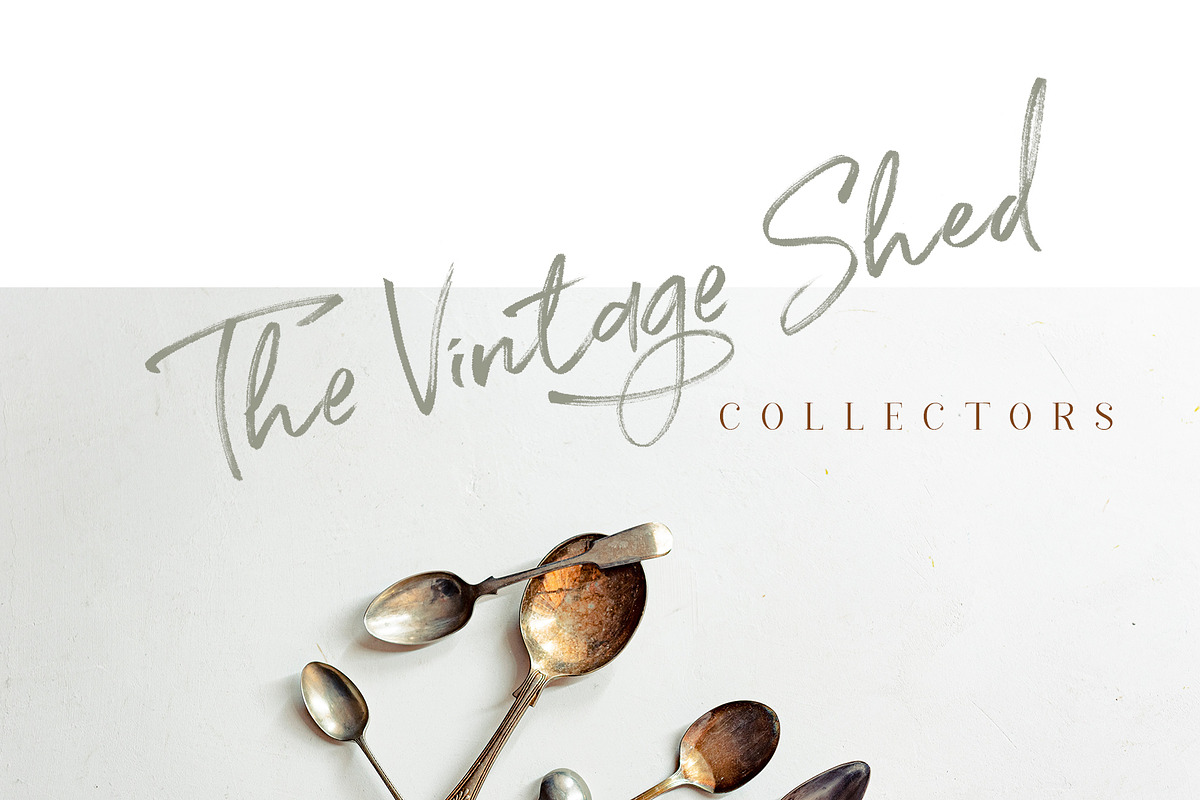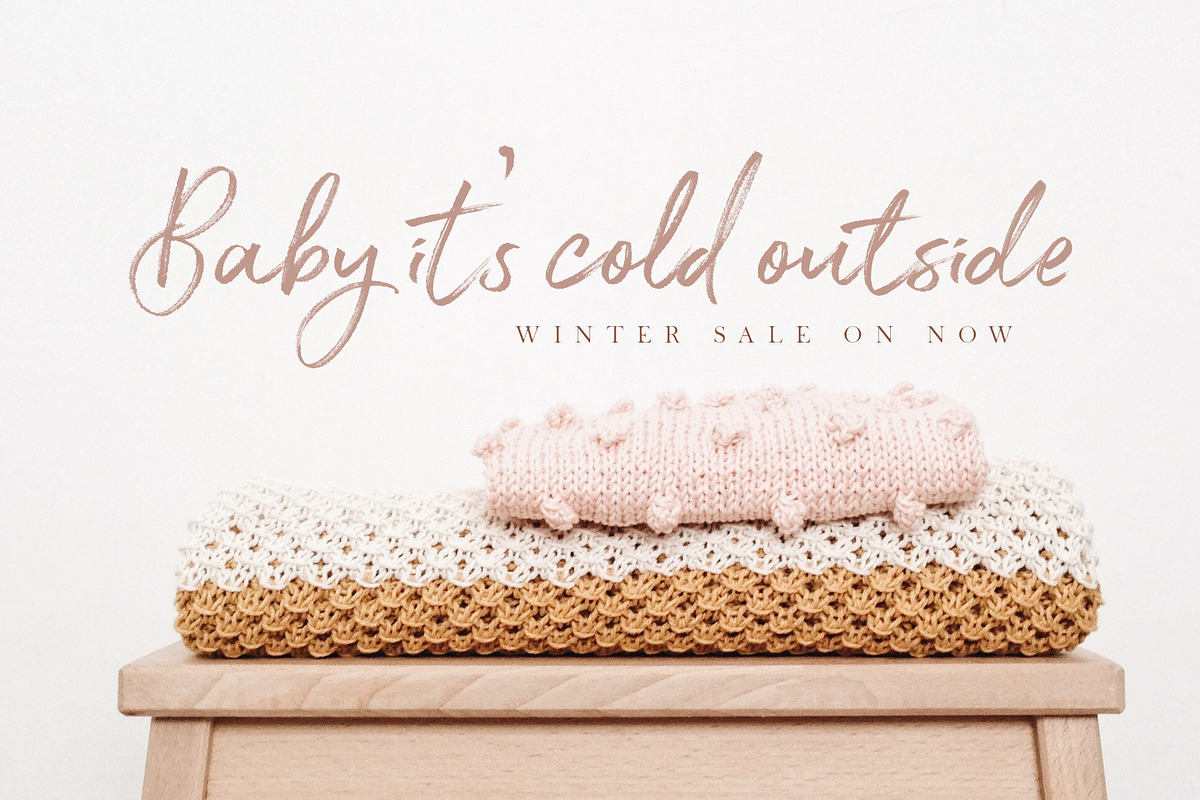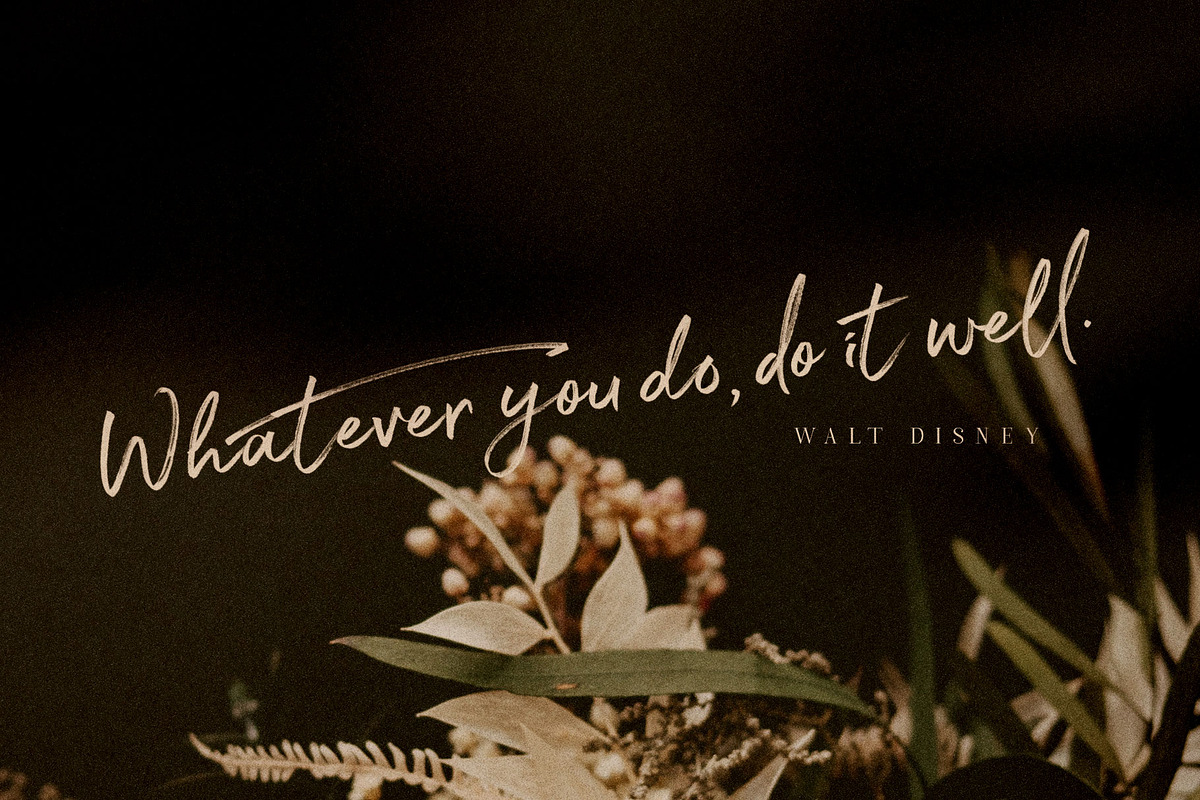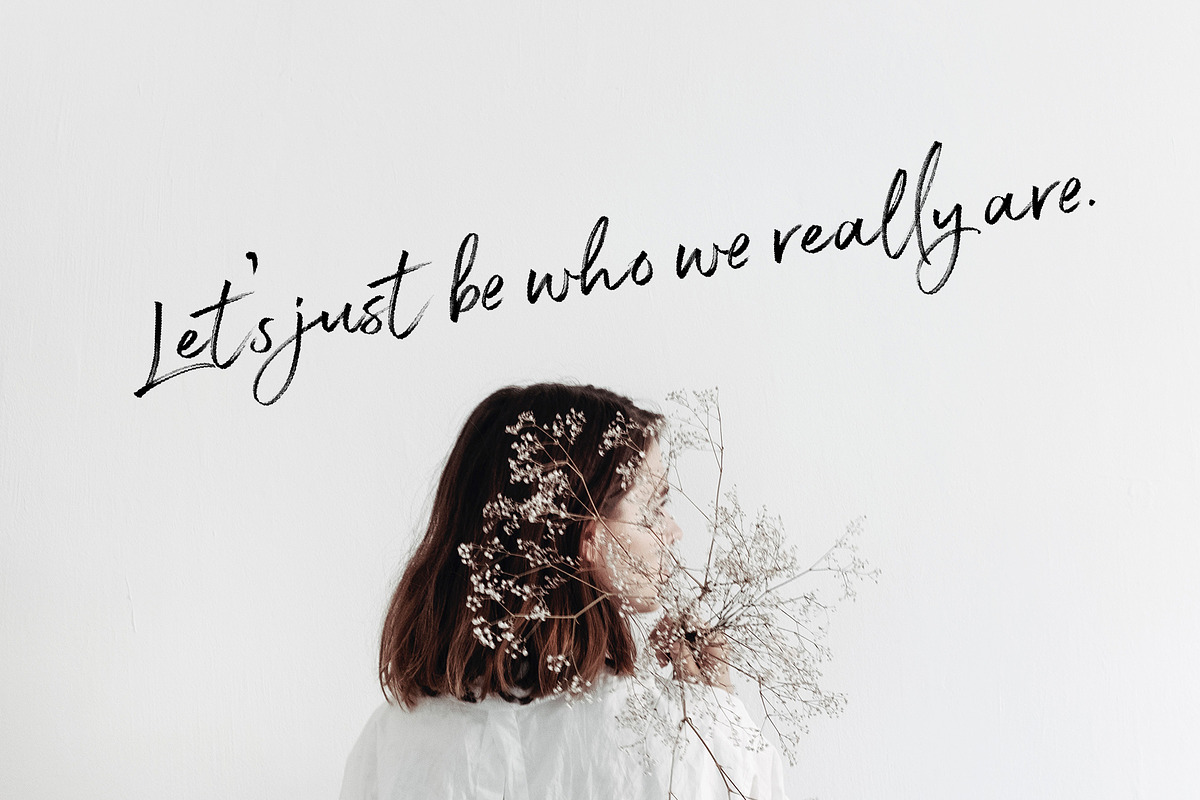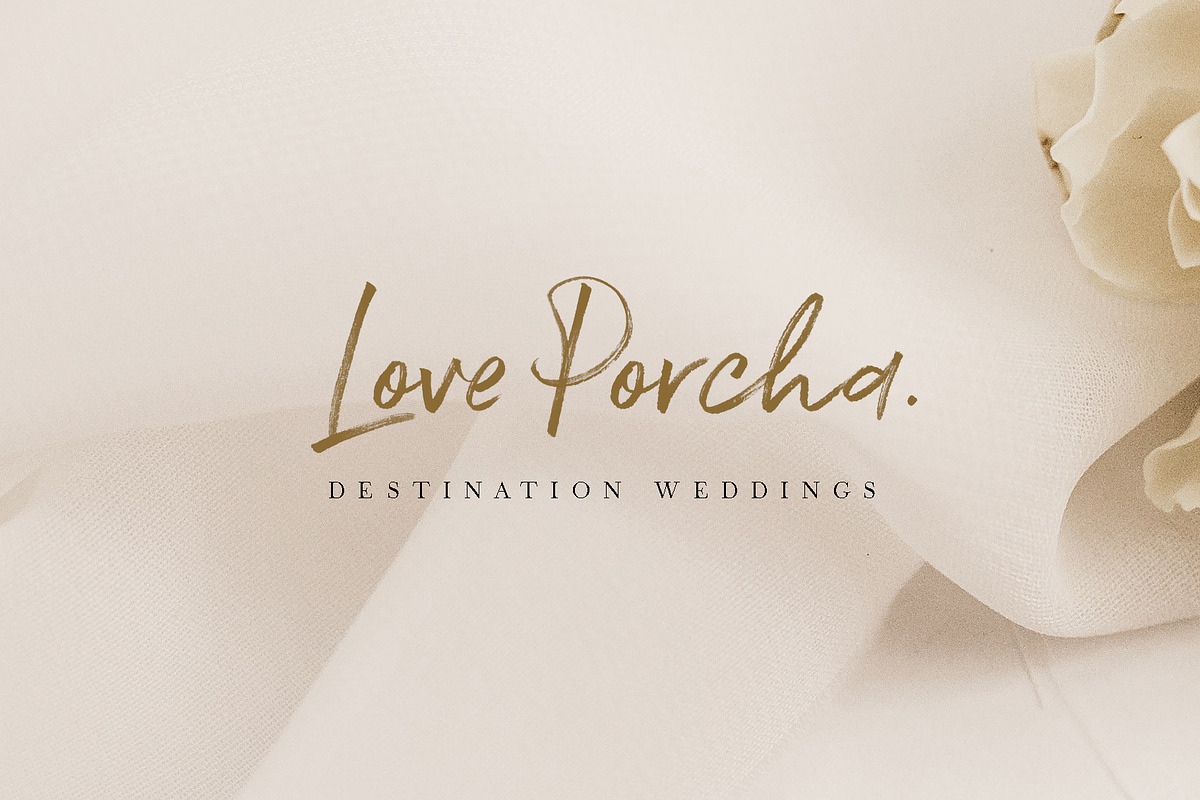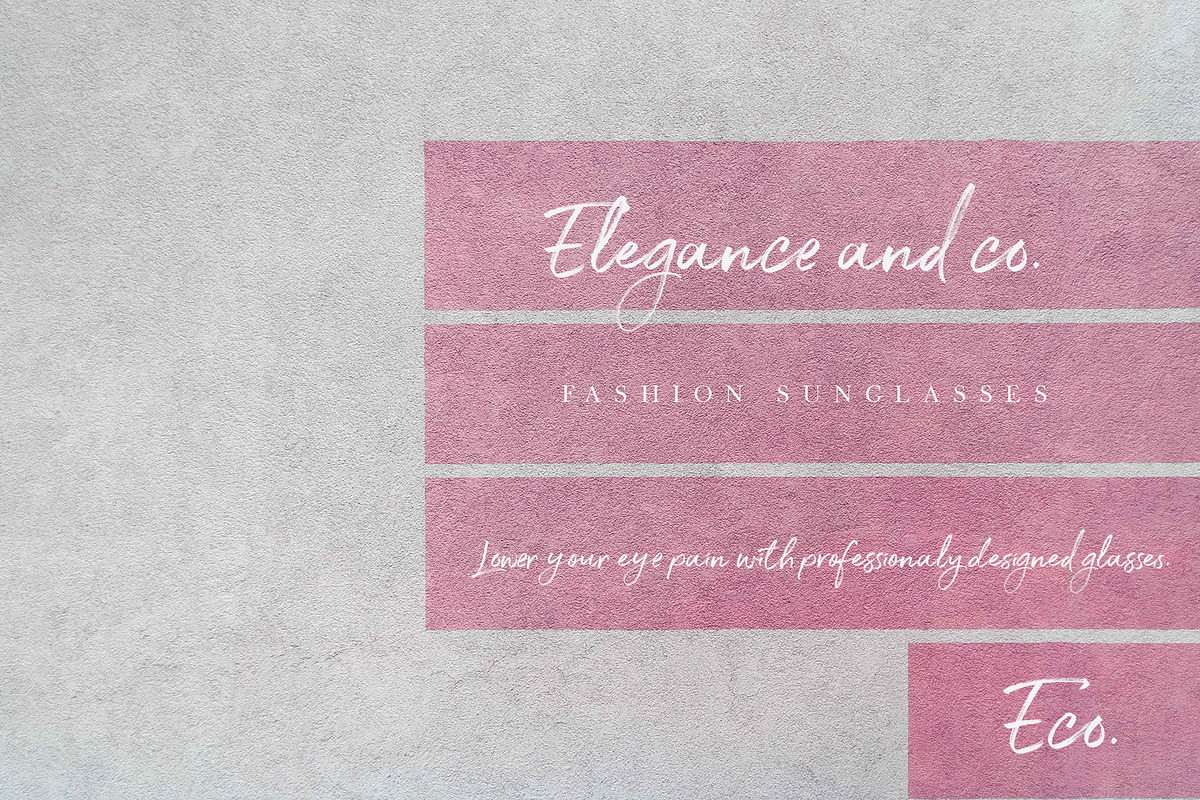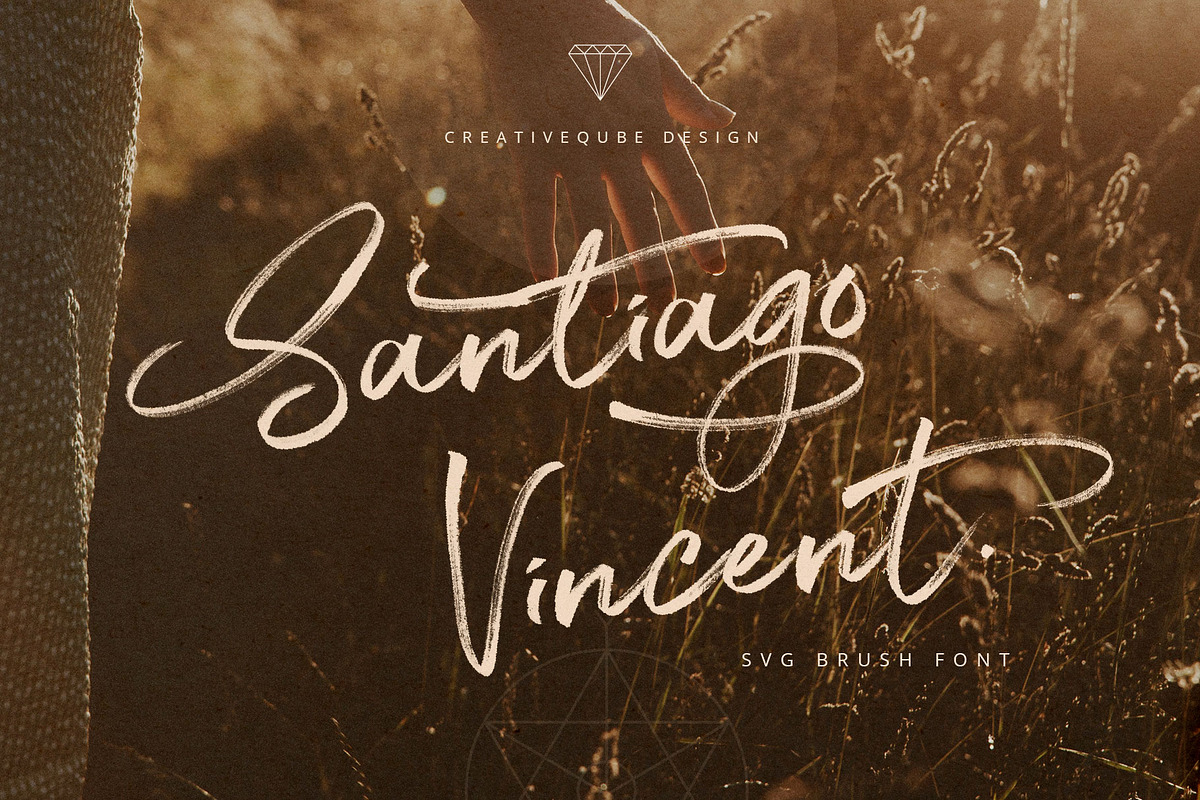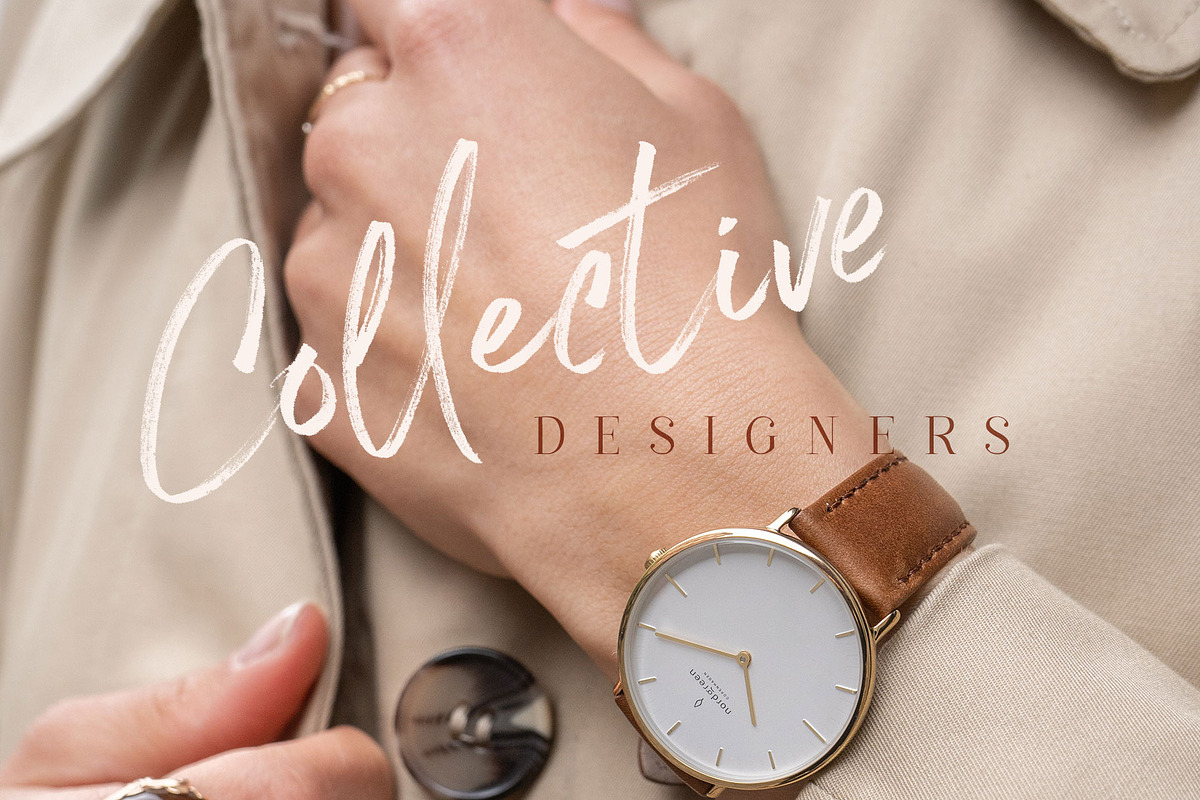
Santiago Vincent SVG Font
Santiago Vincent is an on trend SVG brush font loaded with texture that makes for stunning logos, quotes, wedding invites, blog posts, Instagram, and more! There is also a normal font for those applications that cannot use the SVG file.
Santiago Vincent includes a full set of lowercase alternates for each letter. These are set as ending letters in the regular script font file, (activate the Contextual Alternates button in the Character Panel to see this) plus as the standard letters in the Alternates font file. And then there is the Swashes set! These are in 2 other font files named accordingly.
- Santiago Vincent includes a full set of lowercase alternates for each letter.